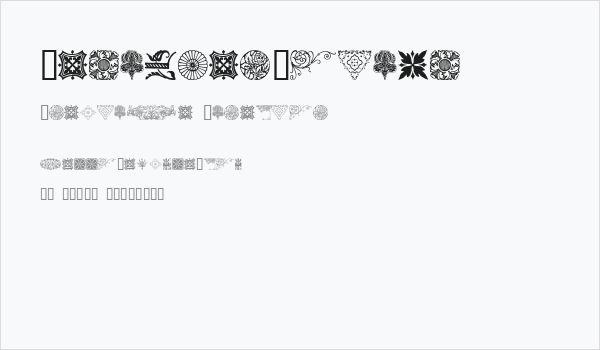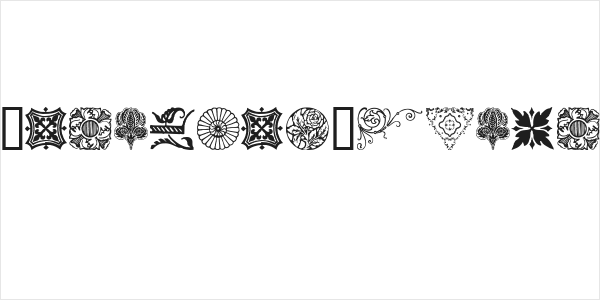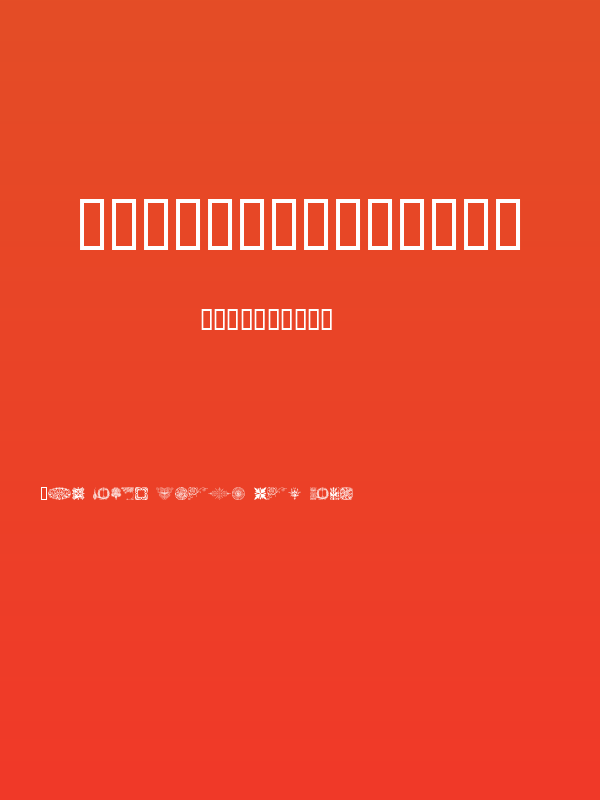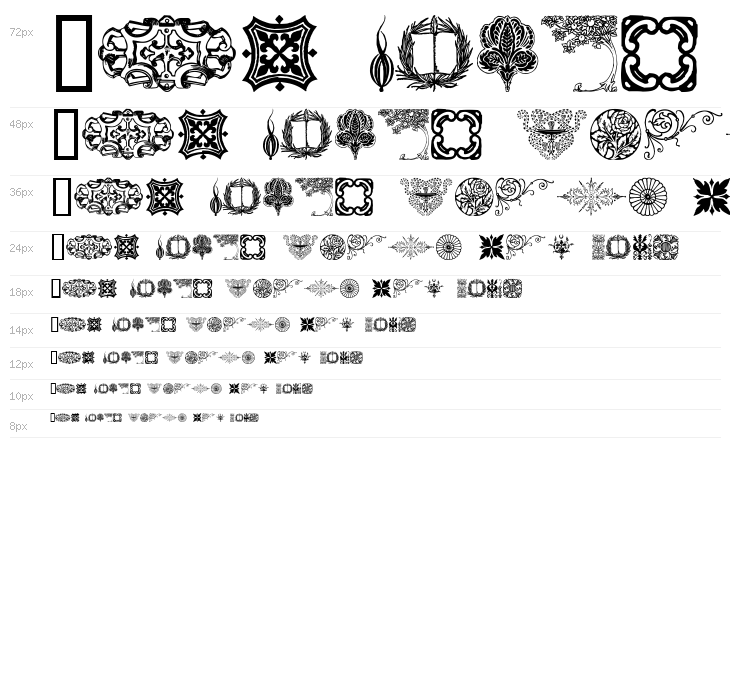
DesignerMotifs Font
DesignerMotifs Description
A decorative motif set featuring intricate, ornamental vector designs inspired by vintage and classical patterns. The motifs include flourishes, floral elements, and symmetrical shapes, suitable for embellishing design projects.
| Overall Style | Vintage, Decorative, Ornamental |
| Use Case | Logos, Decorative elements, Borders, Invitations |
| Proposed Projects | Wedding invitations, certificates, packaging, branding, book covers, decorative borders, and vintage-themed designs. |